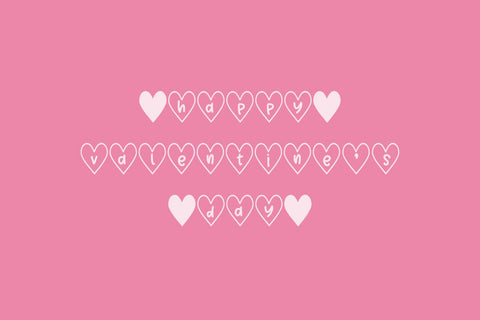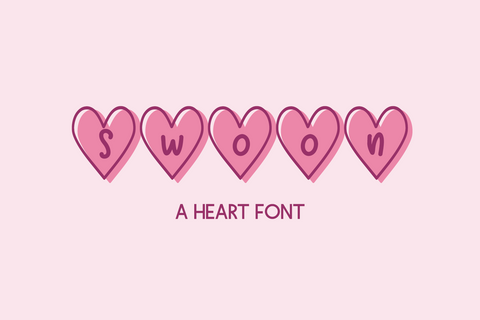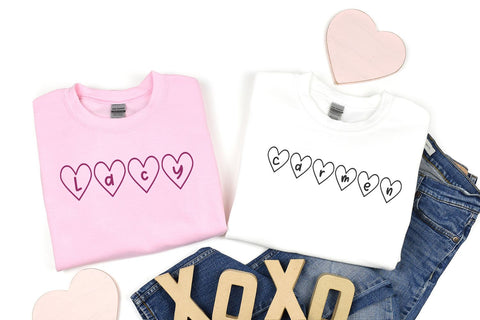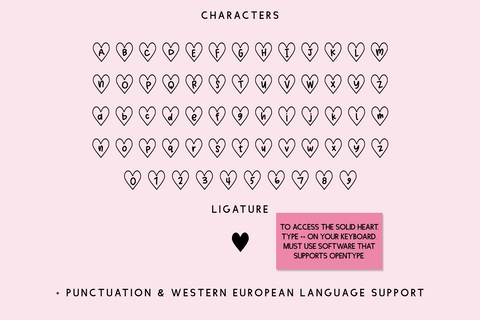
Swoon Heart Font
Say hello to Swoon, an adorable printed sans font in hearts! Swoon is playful & fun, and will be the perfect font for your Valentine’s Day or love-themed projects. Bonus! Using OpenType-friendly software like Illustrator or Photoshop, type ++ for a solid heart so that you can layer this font. (Note: You can also use the copy/paste method detailed in my blog post about accessing OpenType features.)
Swoon includes:
- full upper + lowercase characters
- numbers + punctuation
- 1 alternate character
- Western European language support